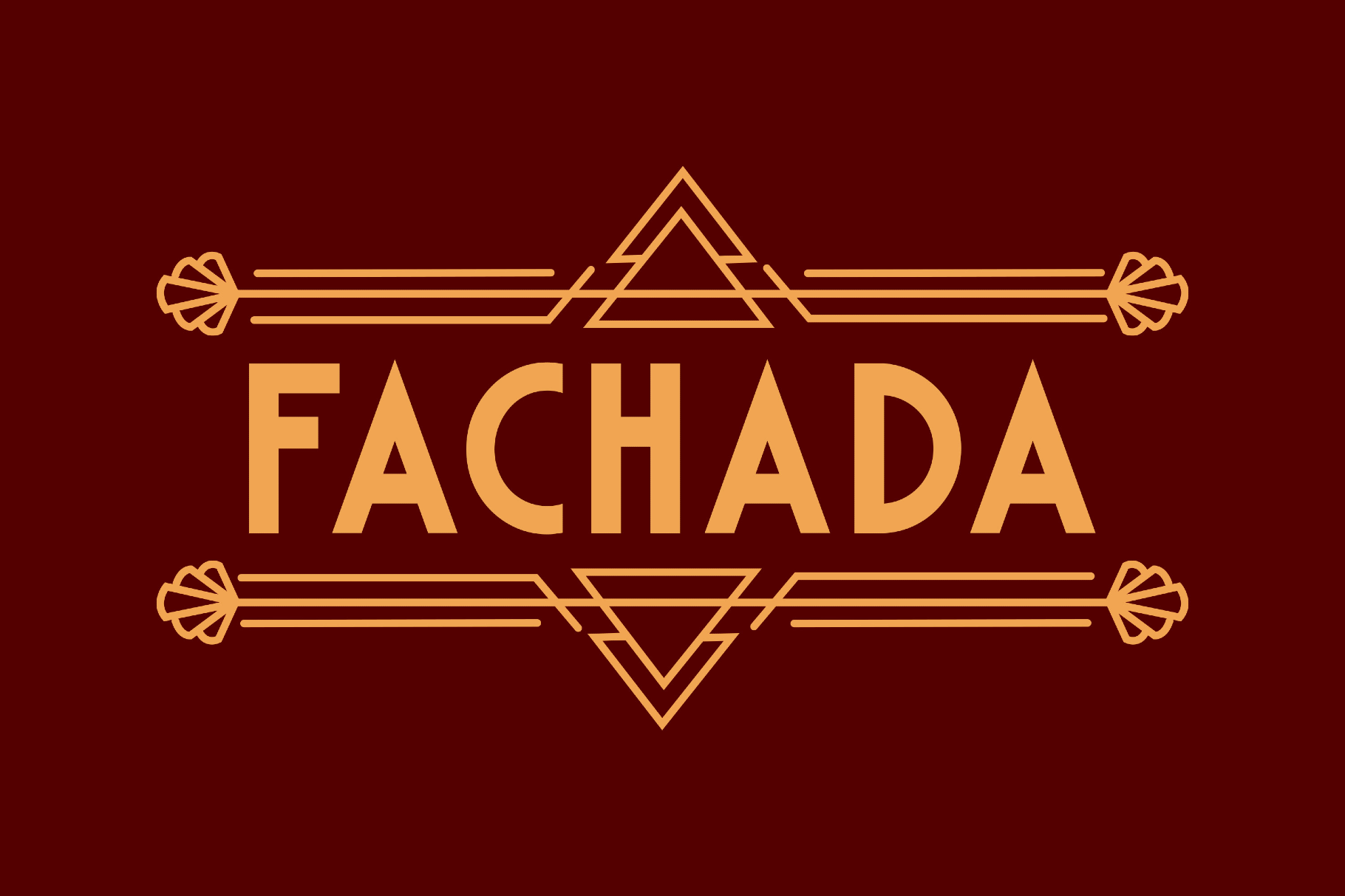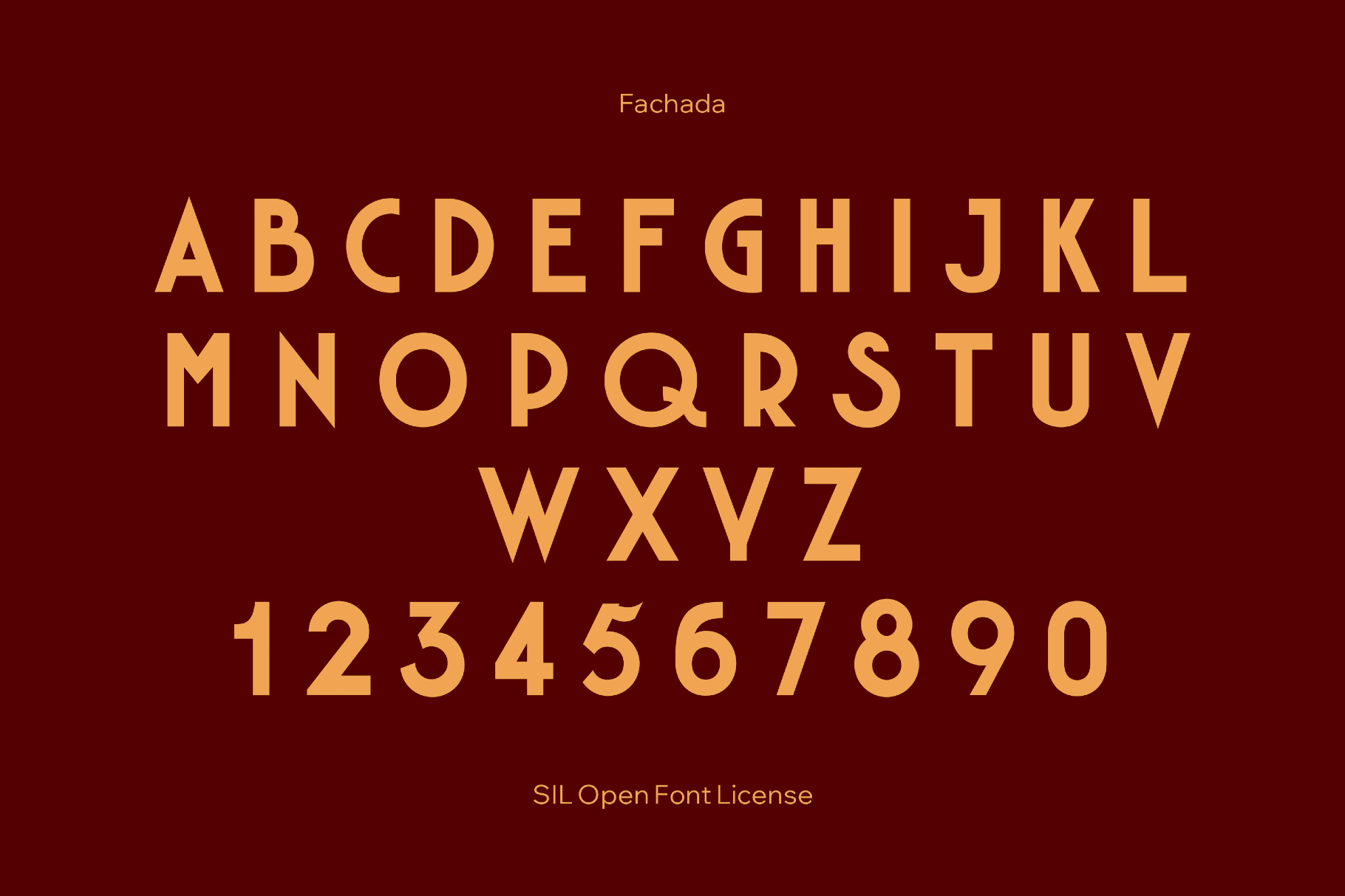
Fachada Art Deco Font
Fachada
Blocky, architectural letterforms of Fachada deliver the vibe of mid-century cinema façades and painted storefront signs. This all-caps font with a decorative rhythm works best for poster headlines, logo wordmarks, signage, storefronts, café branding, murals, packaging badges, album covers, and social titles.
- Uppercase letters only.
- Numbers and basic punctuation.